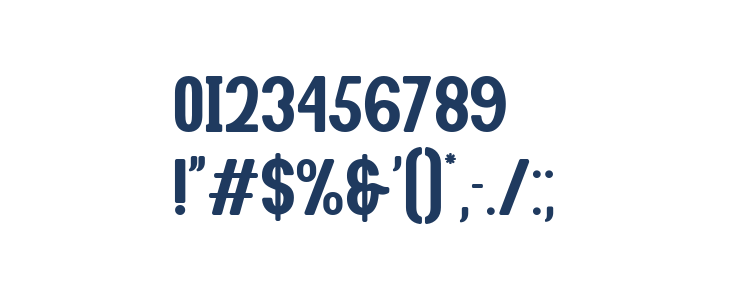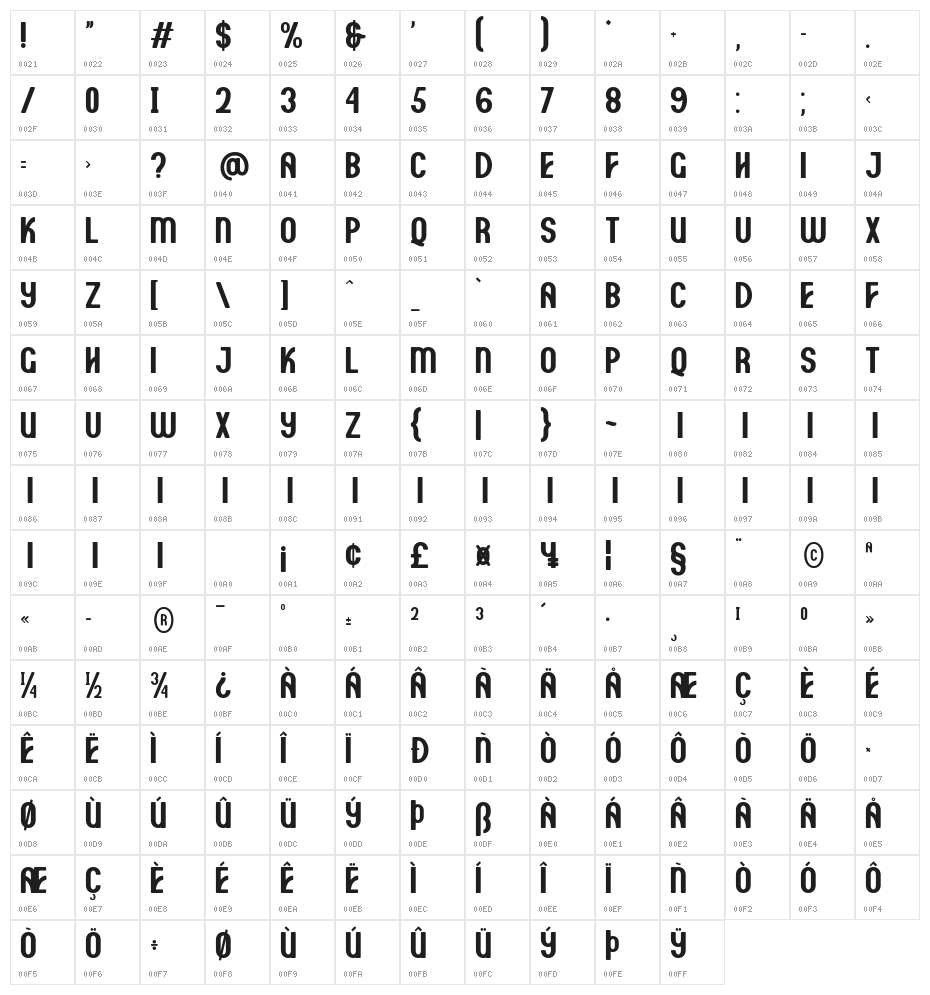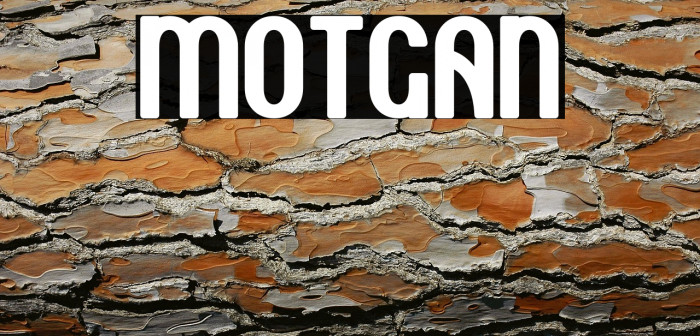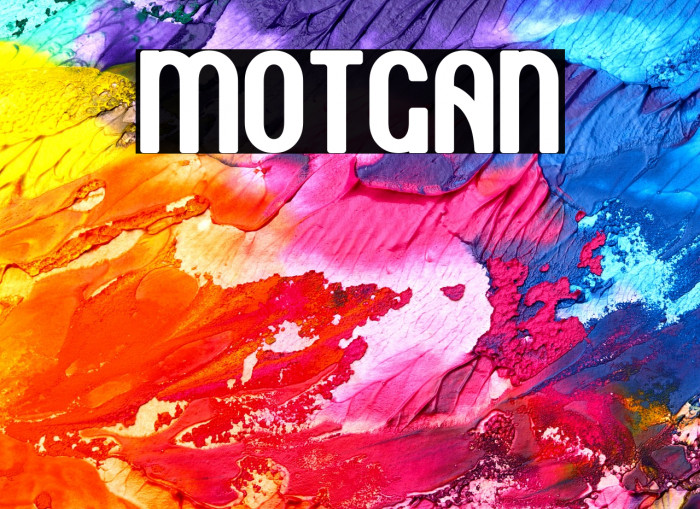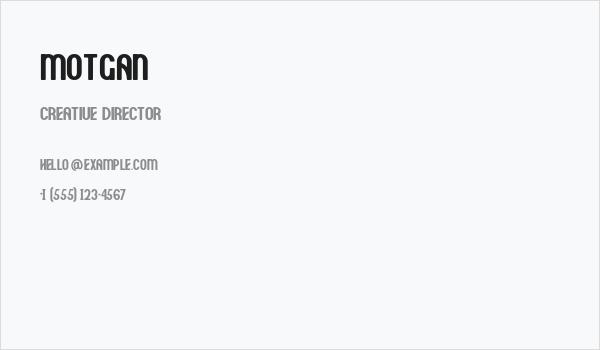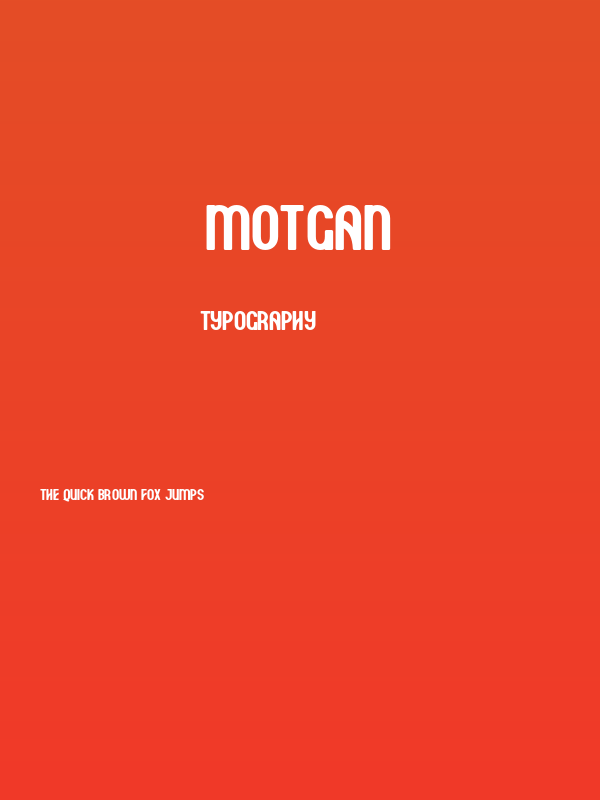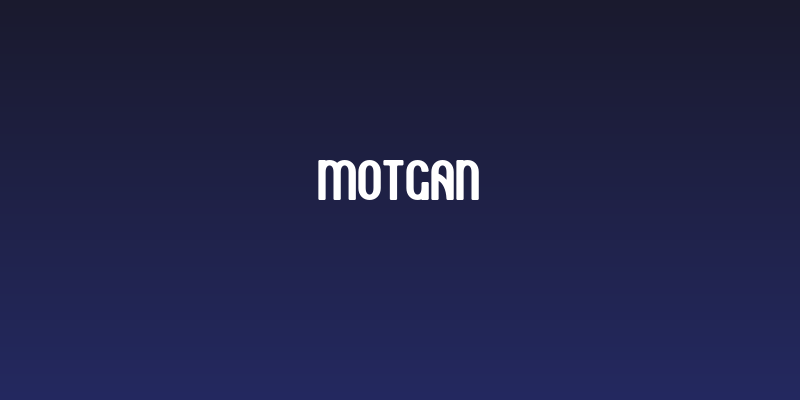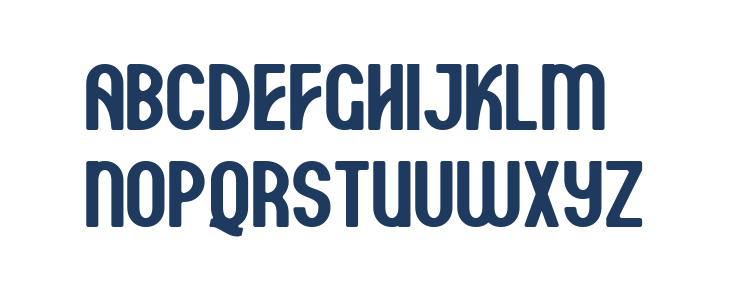
Motgan Font
Motgan Description
This font features a bold and rounded style with a modern and playful aesthetic. The characters are uniformly thick, providing a strong visual impact. The rounded edges and consistent stroke width give it a friendly and approachable feel. The uppercase and lowercase letters maintain a consistent height, enhancing readability. The numbers and special characters are designed to match the overall style, ensuring a cohesive look across all text elements. This font is ideal for projects that require a bold and contemporary appearance.